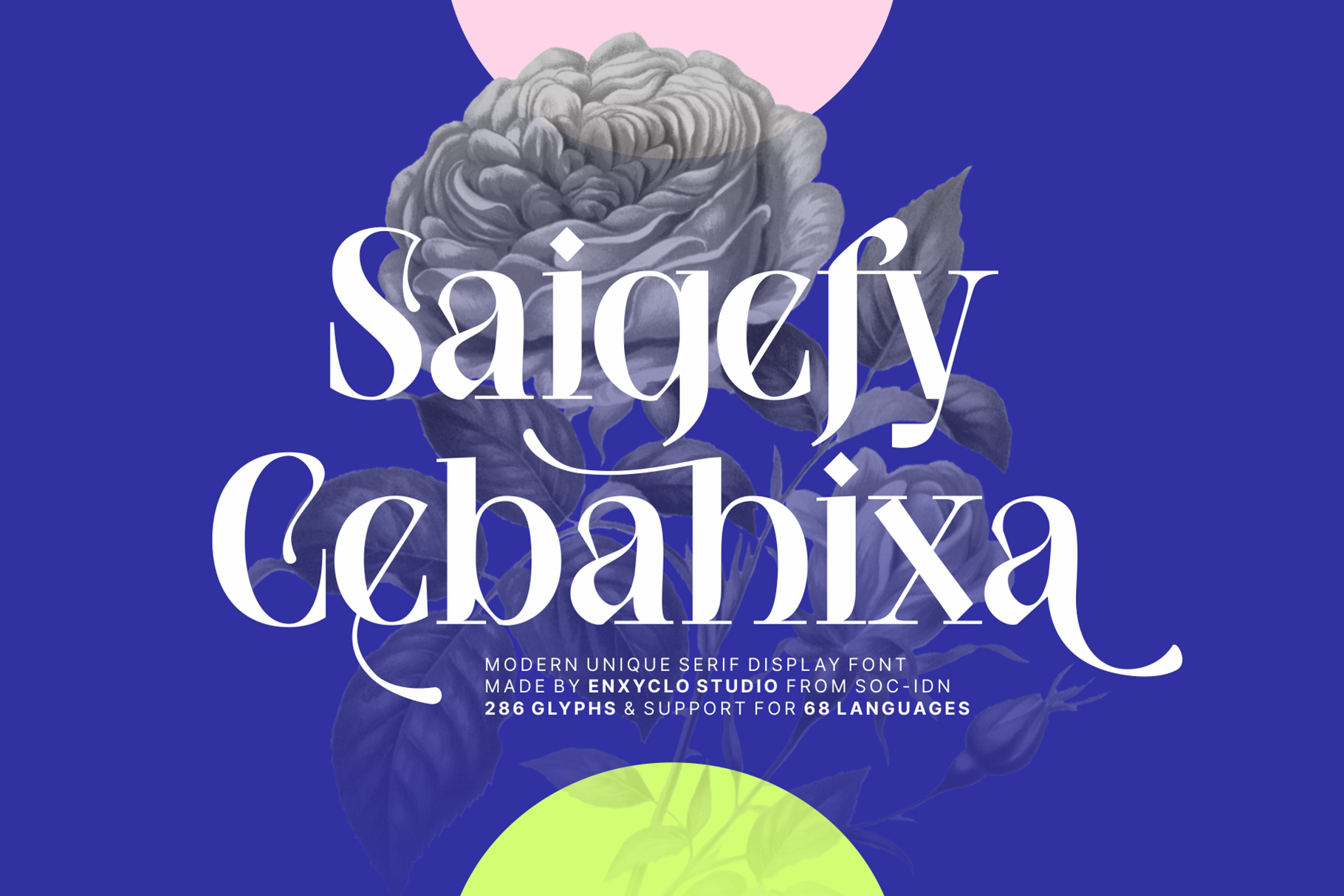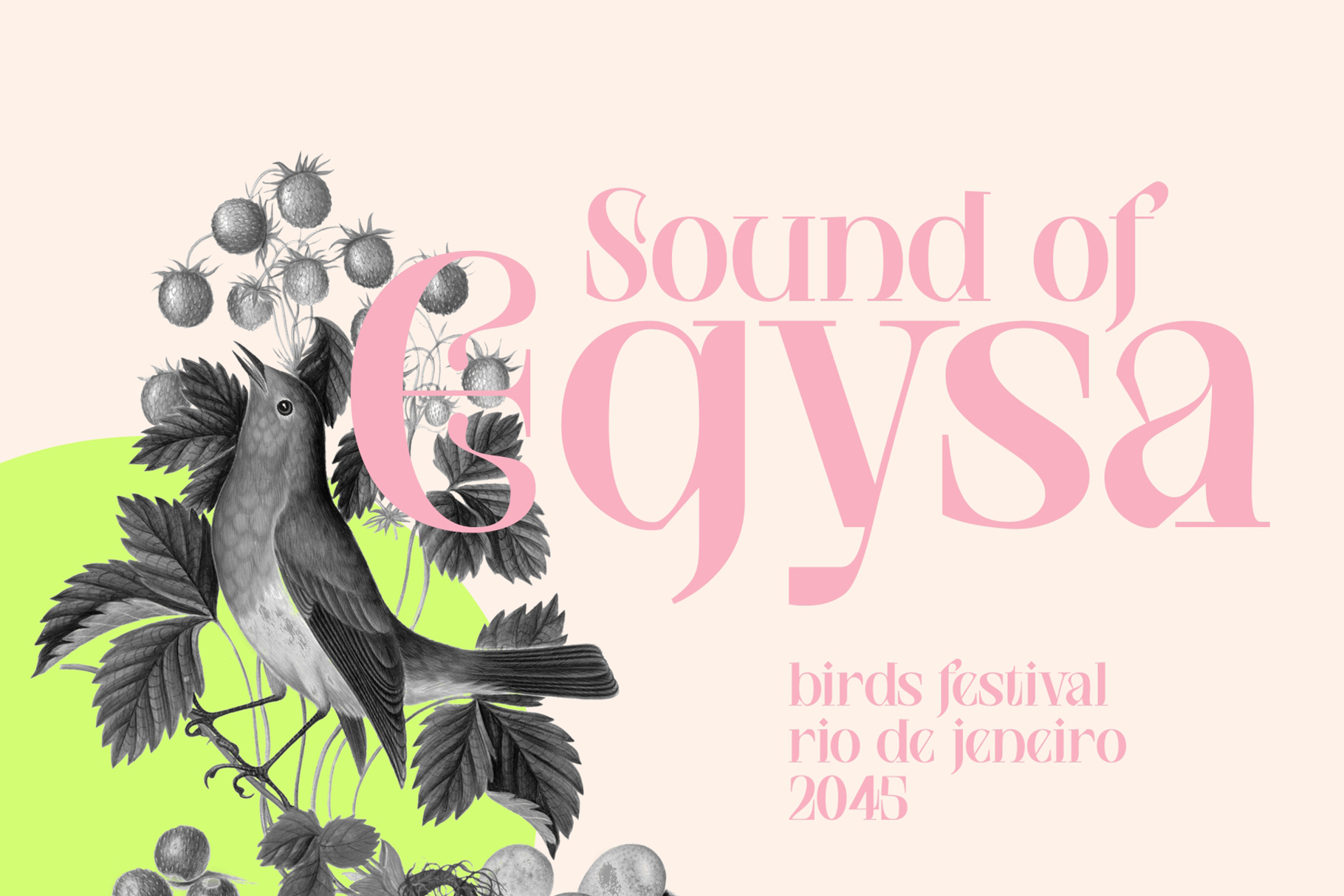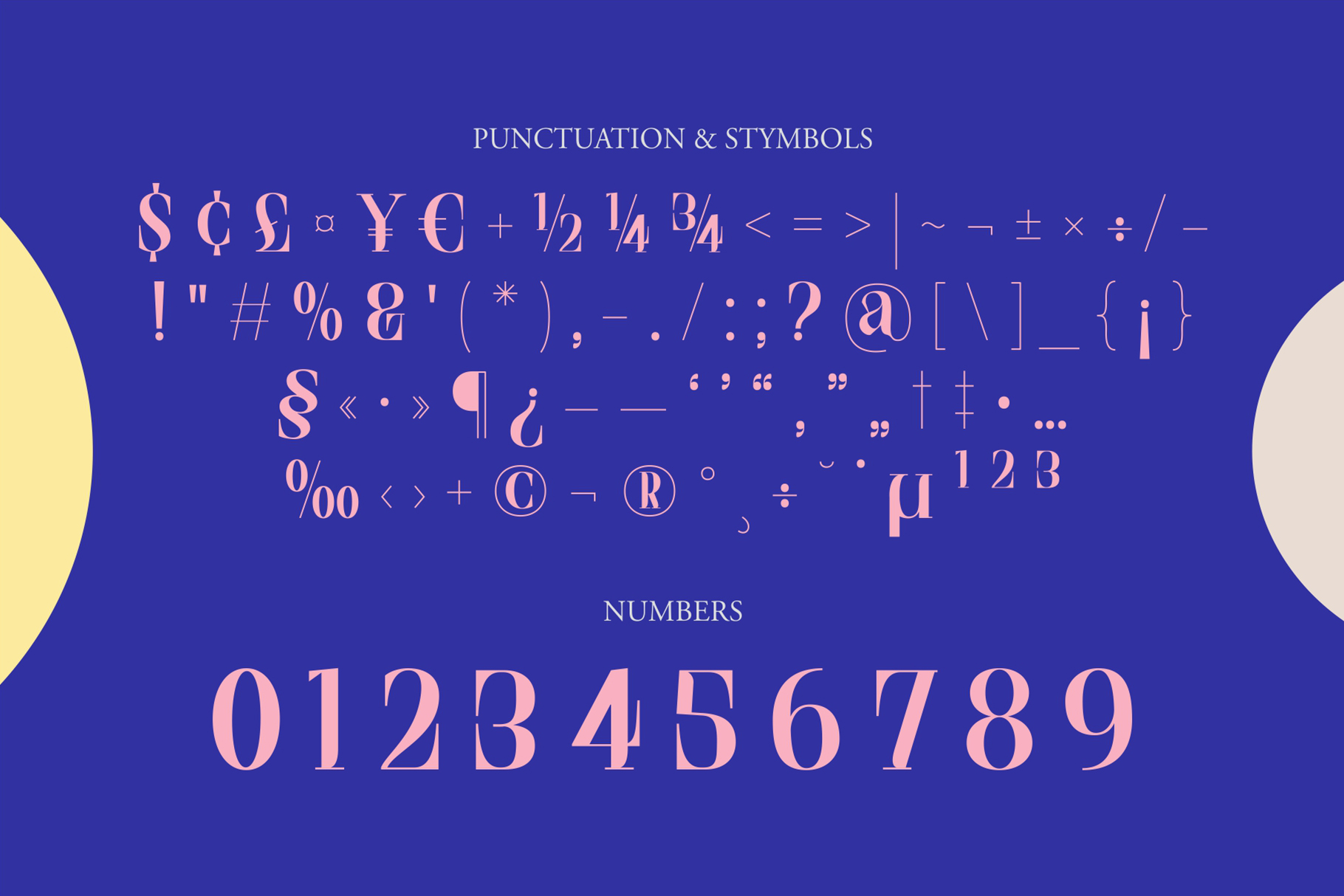
NCL Saigefy Cebahixa – Modern Serif Display Font
NCL SAIGEFY CEBAHIXA is a modern unique serif display font. Masterfully designed to become a true favorite, this font has the potential to bring each of your creative ideas to the highest level! It was purposely crafted to be used in large point sizes, although it doesn’t lose its magic in small point sizes. It is perfect for wedding, headline, billboard, magazines, website, titles, poster, branding, and logos. No matter the topic, this font will be an incredible asset to your fonts’ library, as it has the potential to elevate any creation. With this beautiful font, absolutely you can make your project stand out from the rest.
Uppercase & Lowercase
Numeral, Punctuation & Symbols
Unique Stylistic Set
Special Ligature
- Multilingual Support